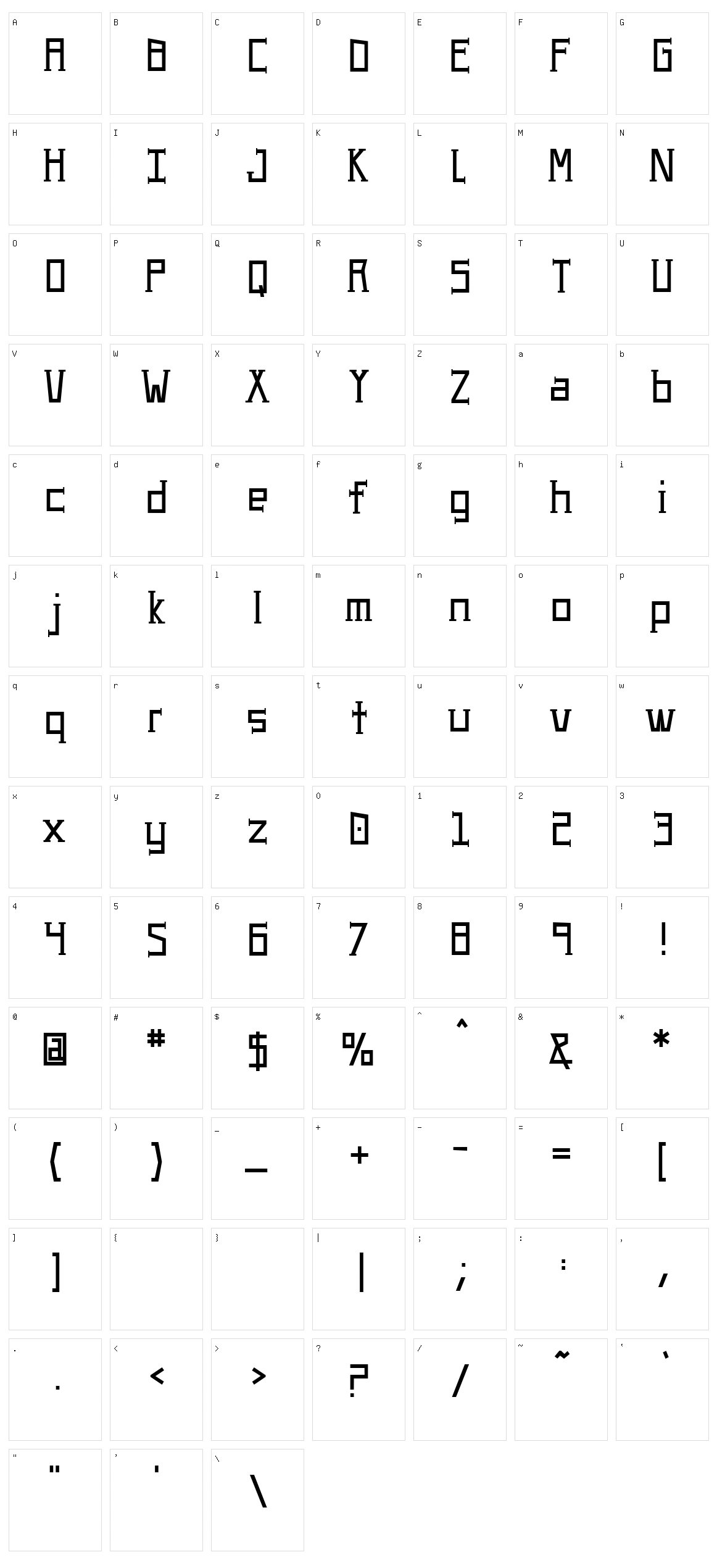
UA Serifed v1.0
I started with UA Squared, something I did just as an experiment. So to continue in the experimental trajectory, I came up with a simple serif and applied it willy-nilly to whereever it would fit (even places it didn't). The I looked at some commercial designers and where they placed their serifs - I'm nowhere close, but I don't care. Maybe one day I'll do a version with serifs where they're suppossed to go. Until then, you have this font.
This version includes upper and lowercase letters, most punctuation, and most international characters.